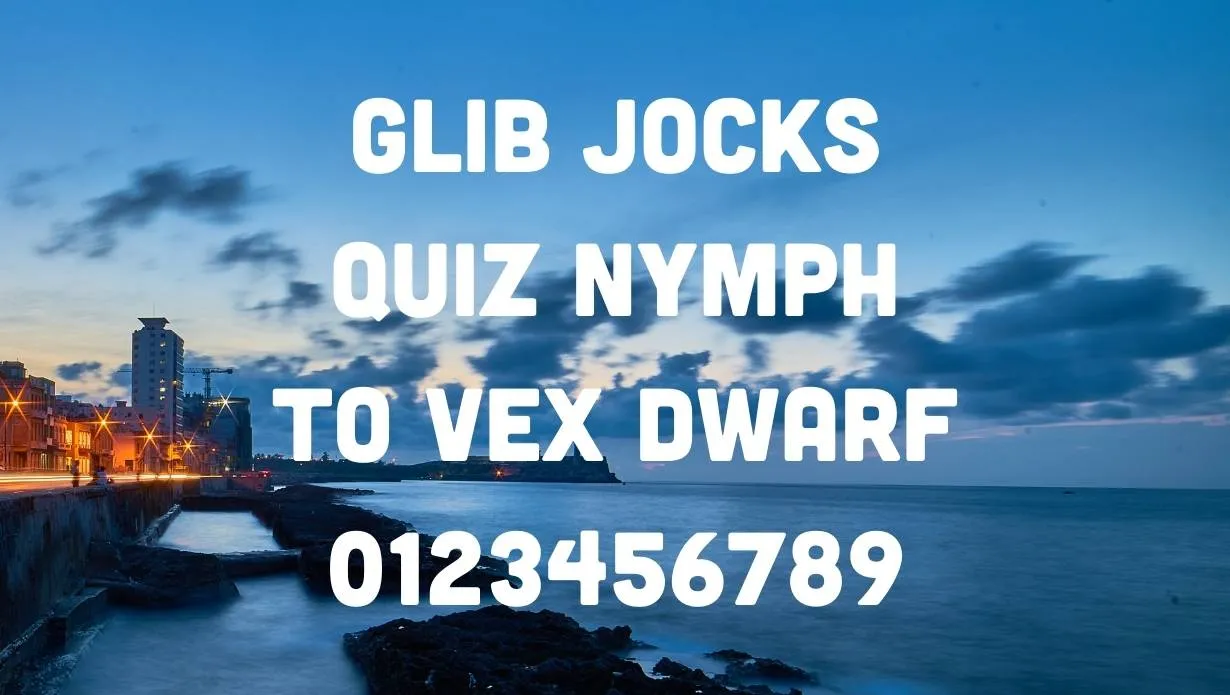
Cubano Font is one of the most popular fonts used by Cubans. It is a serif font with wide, open letterforms and a large x-height. The font’s high readability makes it perfect for both body text and headlines. This Font is available in both regular and italic styles.
This font has very unique glyphs, that make it different from any other font. This Font family consists of four weights Regular, Italic, Bold, Bold Italic. Each font in this Font family has a different purpose.
This Font was created by Cuban-type designer Javier OEMEN in 1997. This Font is a registered trademark of Omen Type Foundry.
If you’re looking for a Cuban-themed font for your next project, look no further than this Font. This popular font has wide, open letterforms and a large x-height, making it highly readable. This Font is available in both regular and italic styles, so you can find the perfect look for your project.
Who Used Cubano Font?
This font is perfect for any project with a Cuban theme. Try this font for headlines, body text, or both. This versatile font can be used for a variety of purposes.
If you’re looking for a Cuban-themed font for your next project, look no further than this Font. This popular font has wide, open letterforms and a large x-height, making it highly readable. This font is commonly used in advertising and headlines. This Font is available in both regular and italic styles, so you can find the perfect look for your project.
The regular style is best suited for body text, while the italic style is best suited for headlines. The bold and bold italic styles are best suited for display purposes such as posters and billboards.
You can easily download this font style from google or adobe stores. This font style is very famous in the font industry due to its pairing function. This font is looking very identical to the Rubik Font.
Cubano Font Family Appearance
| Name | Cubano Font |
| Designer | Javier OEMEN |
| Style | Sans Serif |
Family of Cubano Font
- Cubano Italic Font
- Cubano Sharp Font
- Cubano Sharp Italic Font
This font is safe for MAC OS. This Font was created by Cuban-type designer Javier OEMEN in 1997. This font is a registered trademark of Omen Type Foundry.
Is Cubano Font good for a resume?
This font is good for a resume. This Font has a large x-height, making it highly readable. This font is available in both regular and italic styles, so you can find the perfect look for your project.
Is Cubano Font a professional?
This font is professional. This Font has a large x-height, making it highly readable.